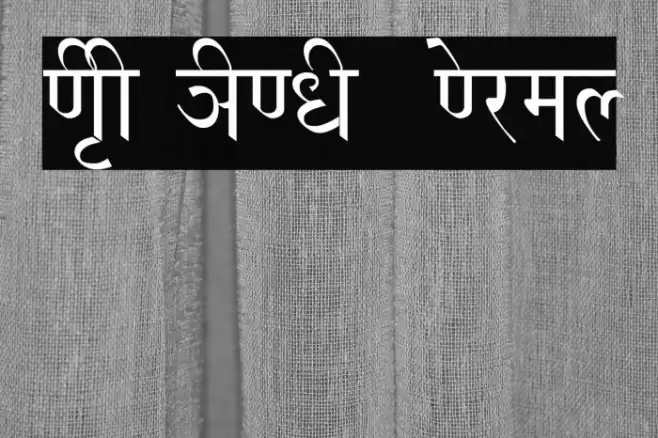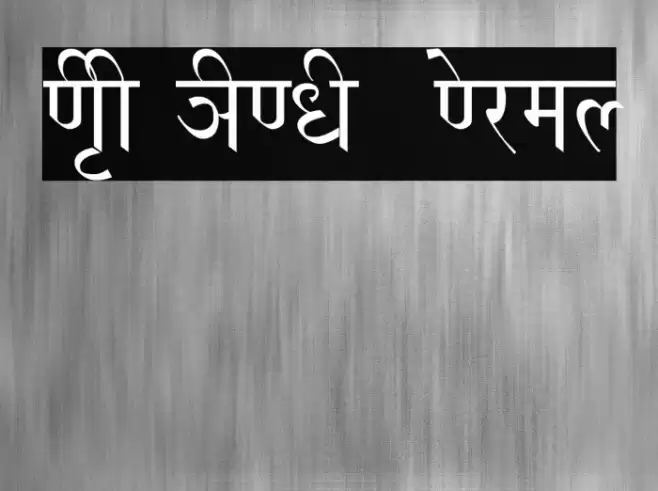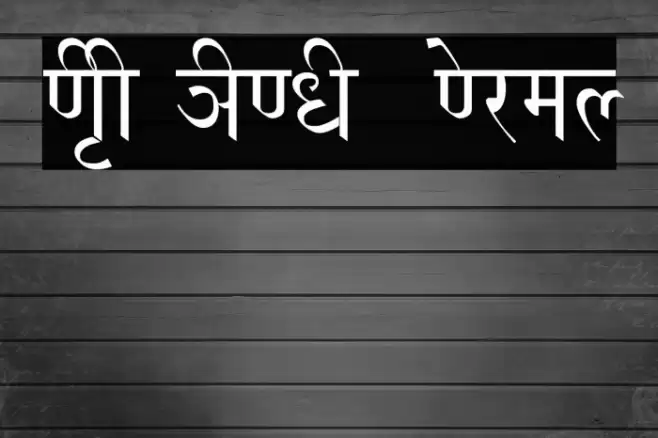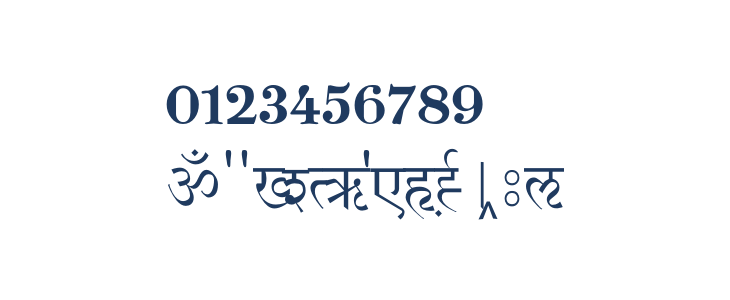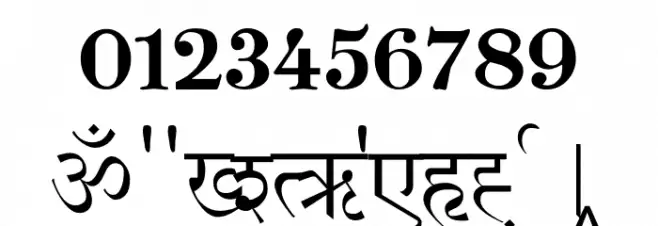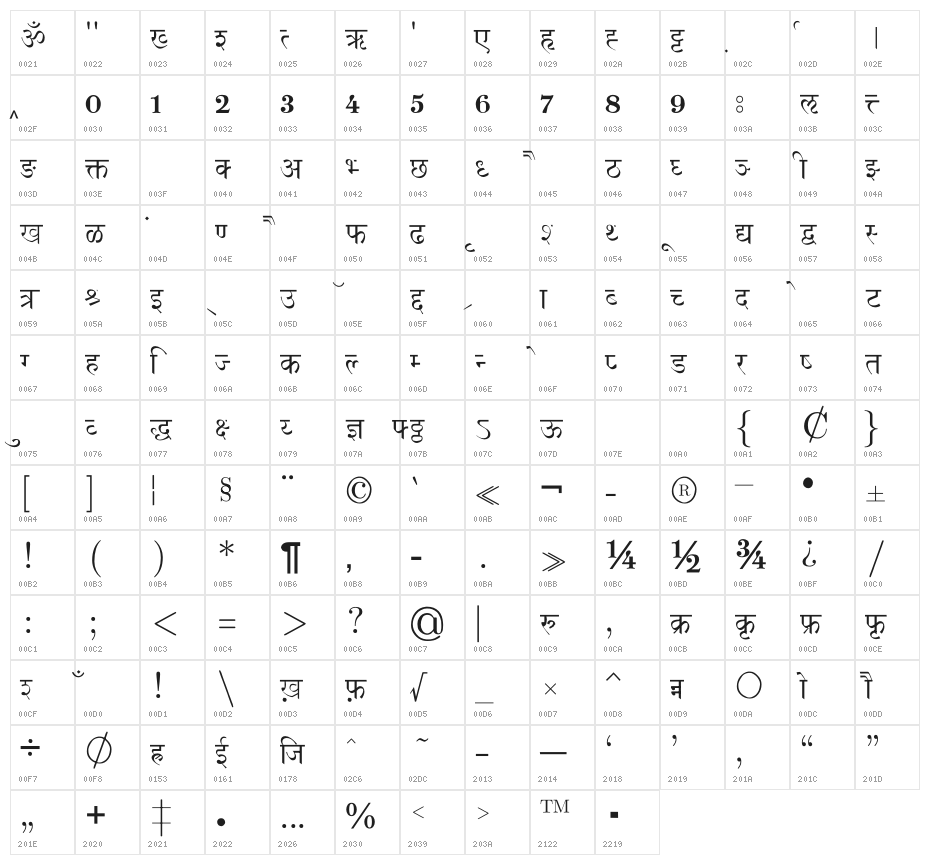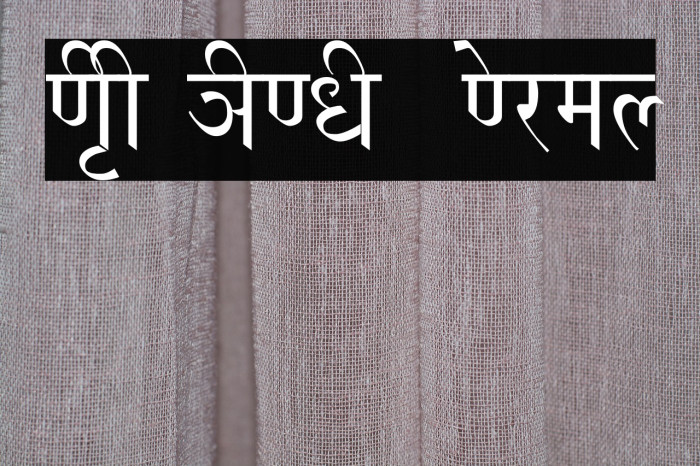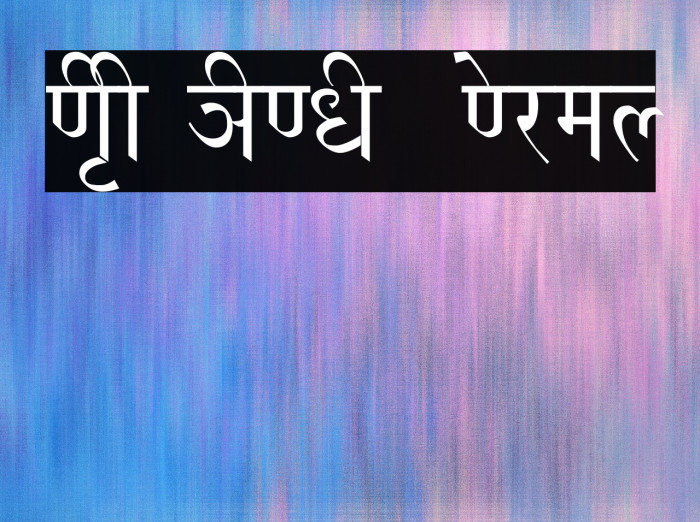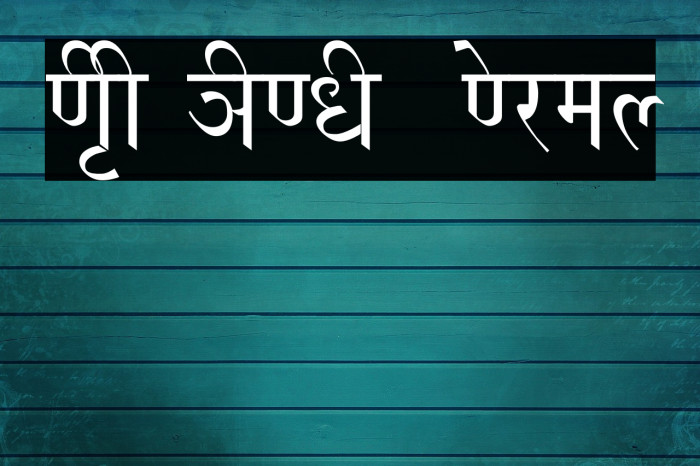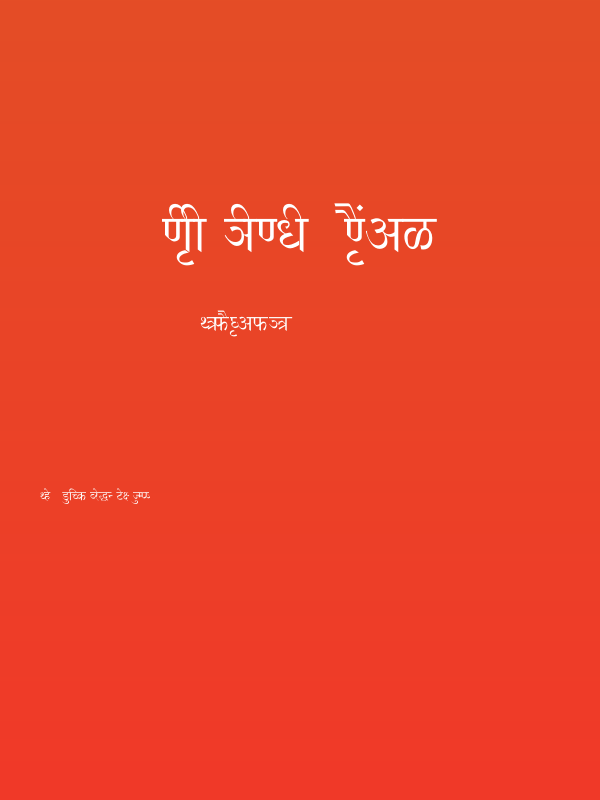
NIRI HINDI Normal Font
NIRI HINDI Normal Description
This font features a traditional Hindi script style with a modern twist, characterized by its clean and sharp lines. The characters are well-defined, with a balanced mix of curves and angles that give it a distinctive appearance. The numerals are bold and clear, making them easily readable. The special characters are elegantly integrated, maintaining the overall aesthetic of the font. The design is both functional and decorative, suitable for a variety of uses where a touch of cultural authenticity is desired. The font's structure allows for excellent legibility, even at smaller sizes, while its artistic flair makes it stand out in larger displays.
A modern Hindi script font with clean lines and excellent legibility from Uncategorized fonts.